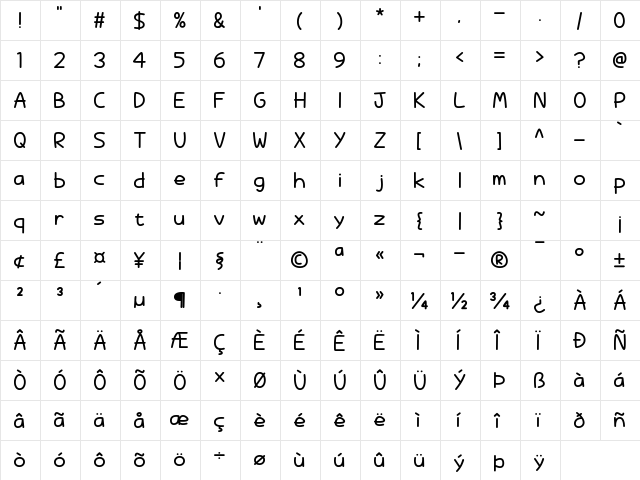
Mahalo, brother! Regular
Design Context for Mahalo, brother! Typeface
Mahalo, brother! offers clean, dependable letterforms without strong stylistic allegiance, making it a practical choice for designers who need flexibility.
Pro Tip: Use Mahalo, brother! in both headline and body roles to test its range before committing to a single application.